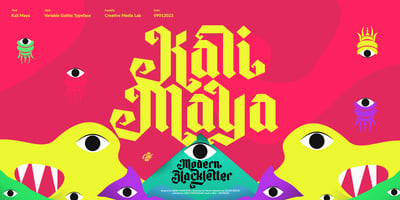
Kali Maya
Kali Maya font
Kali Maya Font Family was designed by Kadek Mahardika and published by Creativemedialab. Kali Maya contains 11 styles and family package options. Kali Maya is a modern variable gothic font consisting of 5 weights and 2 types, regular and sharp.Simple and Plain Gothic combined with a square curve stylistic alternates is ideal for use as title, logo text, t-shirt designs, posters, and more.Comes with a variable format as well as multilingual support, numbers, and currency symbols.